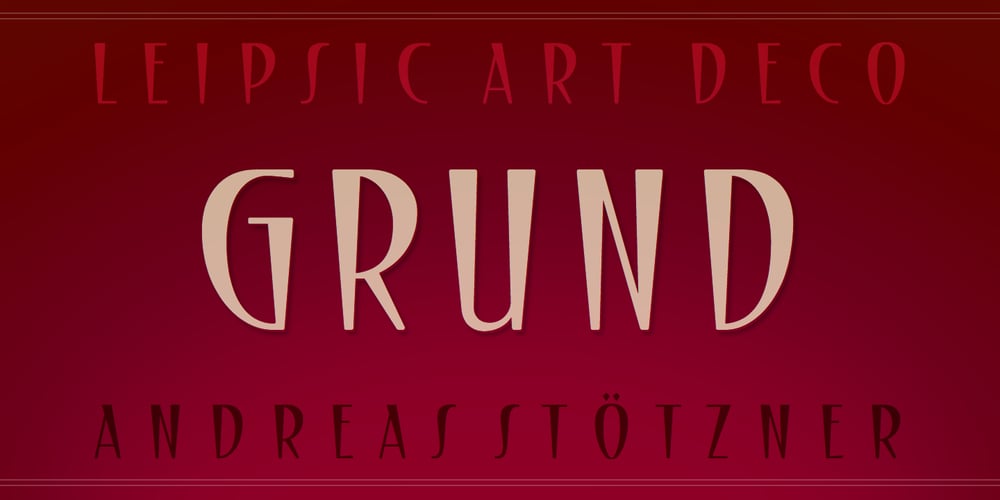
Grund Font Family was designed by Andreas Stötzner and published by SIAS. Grund contains 1 styles and family package options. GRUND is a new fontographic adaption of a remarkable 1920s epigraphical find in the city of Leipsic. This old well-known European trade fair hotspot struggled with a severe shortage of exhibition space around 1920. The solution was to dig deeper into the matter – literally – and 1924 the world’s first underground trade fair exhibition hall was opened right under the city’s central market square. After several changes of use during the past decades the sophisticated Art Deco entrance structure (architect: Otto Droge) was re-opened in December 2013 as a gateway to a new subway rail track. – The original brass lettering of the UNTERGRUNDMESSHALLE MARKT has been retrieved – and served as the inspiration for this new and unique font. If you’d like to see more exceptional Art Deco type, have a look at my Arthur series. __________________________________________________________________________________________